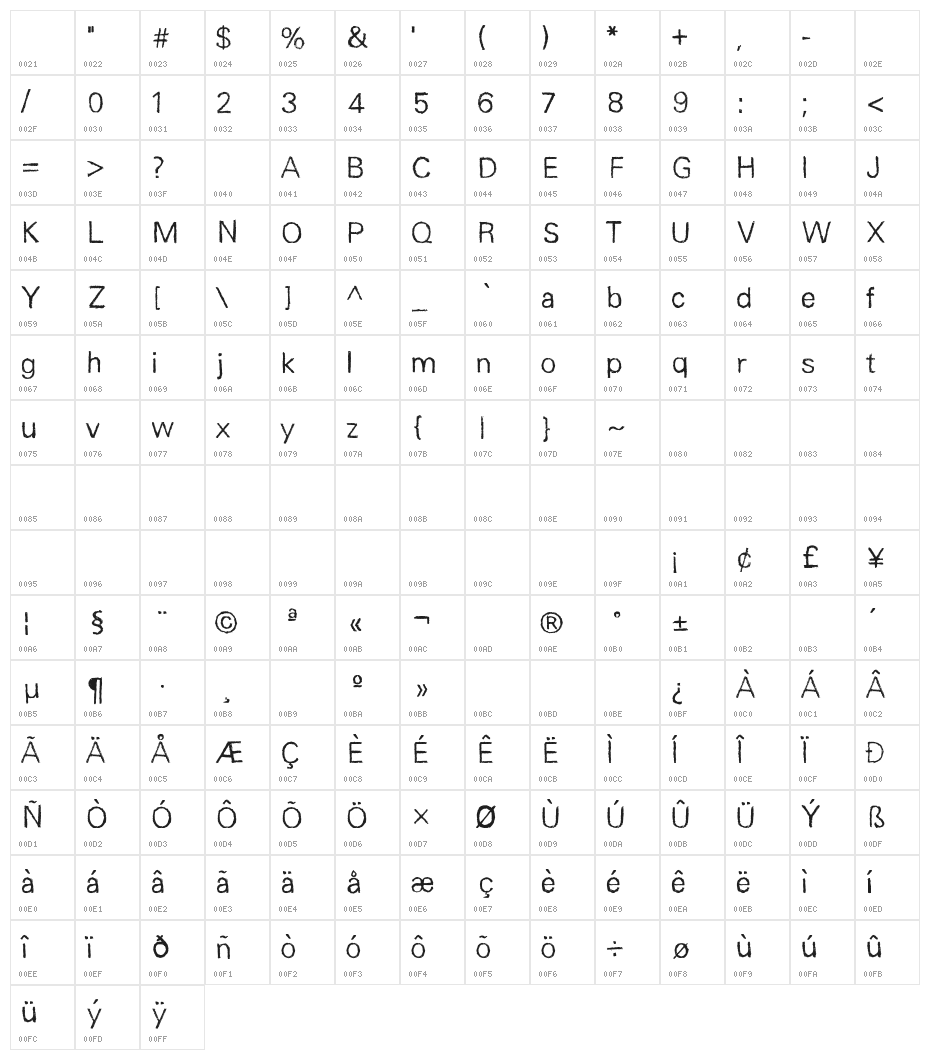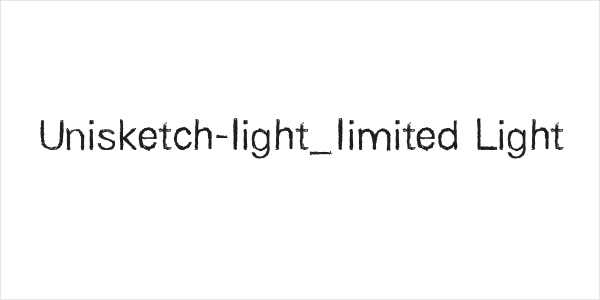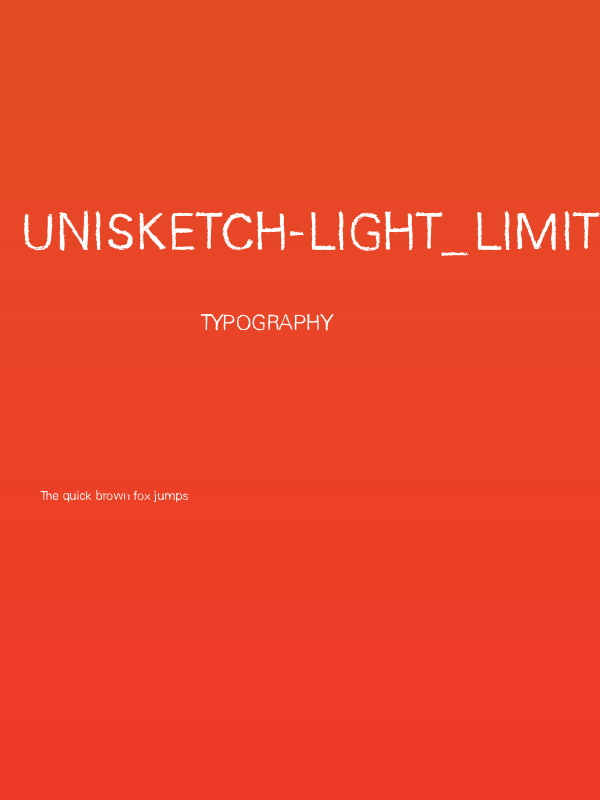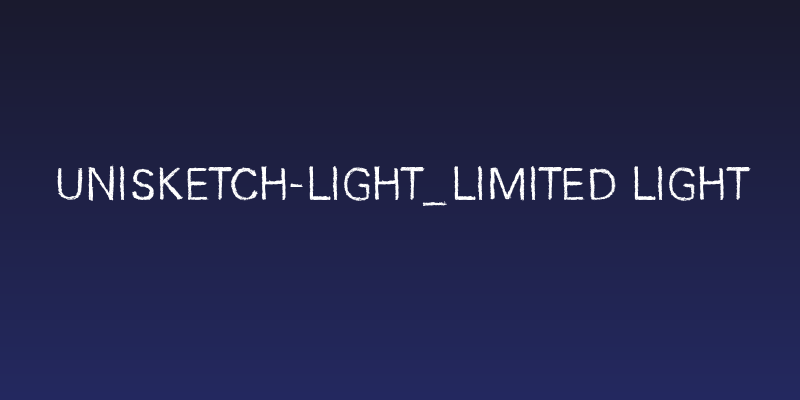
Unisketch-light_limited Light Font
Unisketch-light_limited Light Description
This font features a hand-drawn, sketch-like appearance, giving it a casual and artistic feel. The letters are slightly irregular, with a textured look that mimics the effect of a pencil or charcoal drawing. The strokes are uneven, adding to the organic and informal style. Despite its sketchy nature, the font maintains good legibility, making it suitable for creative projects that require a personal touch. The characters are well-spaced, ensuring readability while preserving the artistic flair. This font is ideal for designs that aim to convey creativity, individuality, and a handcrafted aesthetic.
| Overall Style | Artistic, Handcrafted |
| Proposed Projects | Ideal for creative projects such as art posters, handmade product packaging, personal branding, and artistic invitations. |